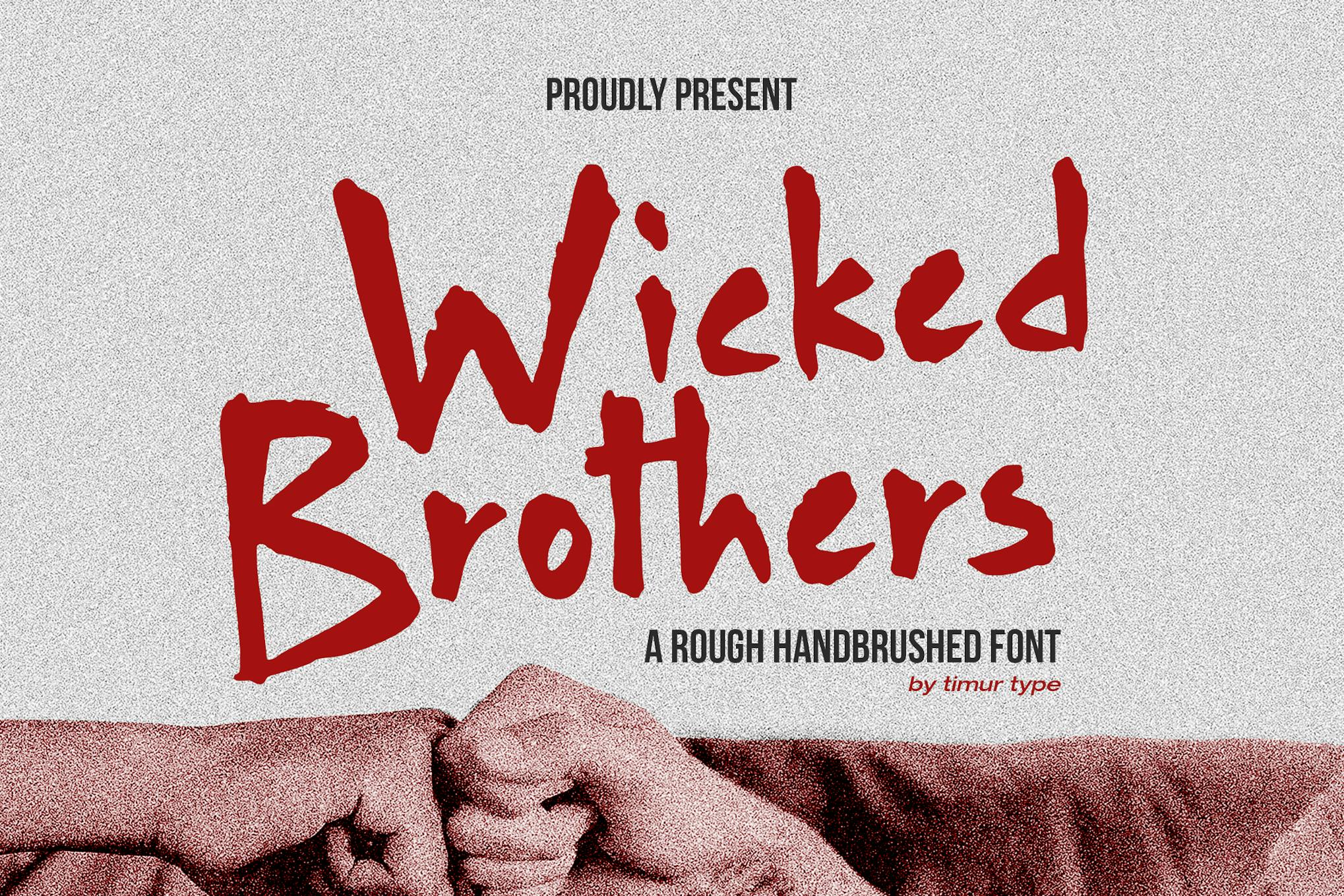
Wicked Brothers - Rough Handbrushed Font TT
The Wicked Brothers - Rough Handbrushed Font TT is perfect for streetwear branding, urban poster designs, grunge album covers, skate shop logos, tattoo parlor signage, rock band merchandise, distressed packaging design, vintage motorcycle graphics, rebellious social media content, and edgy advertising campaigns.
What makes the Wicked Brothers - Rough Handbrushed Font TT so exciting is its raw, authentic brush stroke texture combined with bold, rebellious character design. This powerful typeface captures the essence of street art and underground culture, featuring rough edges, organic paint splatters, and hand-painted authenticity that brings instant attitude and energy to any design project. The font's distressed appearance and gritty personality create an unmistakable urban vibe that speaks directly to audiences seeking genuine, unpolished creativity.
The Wicked Brothers - Rough Handbrushed Font TT family includes various stylistic alternates and character variations, featuring multiple brush stroke textures, uppercase and lowercase options, and decorative elements. Each variation maintains the signature rough aesthetic while offering different levels of distressing and texture intensity, giving designers complete creative control over their projects.
The distinctive characteristics of Wicked Brothers - Rough Handbrushed Font TT showcase genuine handbrushed craftsmanship, with each letter featuring unique texture variations and organic imperfections that enhance its authentic appeal. The font's comprehensive character set includes standard letters, numbers, punctuation, and special symbols, ensuring complete functionality for diverse design projects and international applications.
Ideal for both digital and print media, this remarkable font maintains its gritty character and readability across various sizes and formats. From large-scale murals to detailed merchandise designs, Wicked Brothers - Rough Handbrushed Font TT adapts seamlessly to any creative challenge while preserving its distinctive rough texture and rebellious spirit.